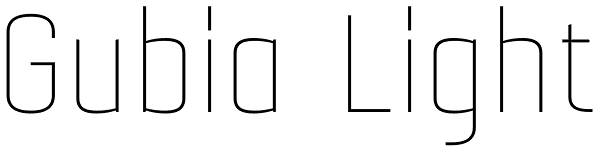
Gubia
Gubia font family has been designed for Graviton Font Foundry by Pablo Balcells. It is a geometric, sans serif typeface with a slightly condensed design. It has been conceived to be most suitable for all sized headlines, as well as short and middle...